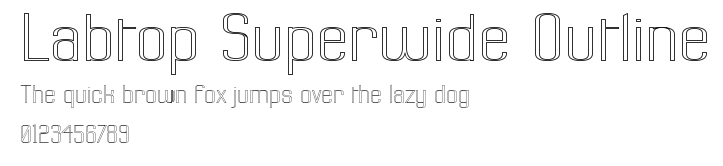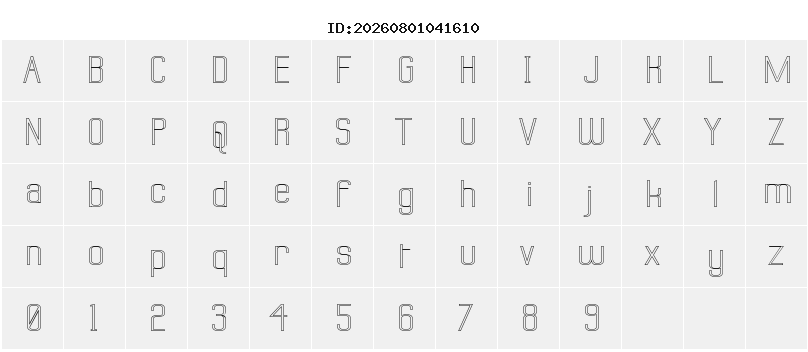
Labtop Superwide Outline Preview
About Labtop Superwide Outline.ttf
Labtop Superwide Outline.ttf is a modern, elegant sans-serif font designed for ultimate readability and visual harmony. Perfect for branding, headlines, web design, and print materials.